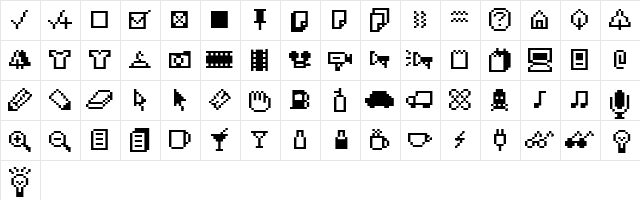
IconBit Regular
Design Context for IconBit Typeface
IconBit takes a measured approach to typography — its balanced proportions and neutral character make it a reliable workhorse for both digital and print work.